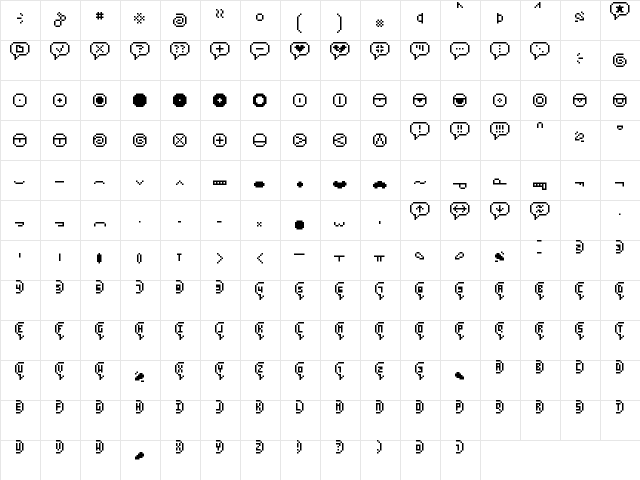
Pixelface Regular
Design Context for Pixelface Typeface
Pixelface is rooted in pixel-grid construction, making it a natural fit for game UI, retro computing aesthetics, and digital nostalgia projects.
A natural choice for retro game titles, chiptune music branding, 8-bit UI, and digital nostalgia projects.
Pro Tip: Pair Pixelface with flat colour palettes and simple geometric UI elements to reinforce its digital aesthetic.